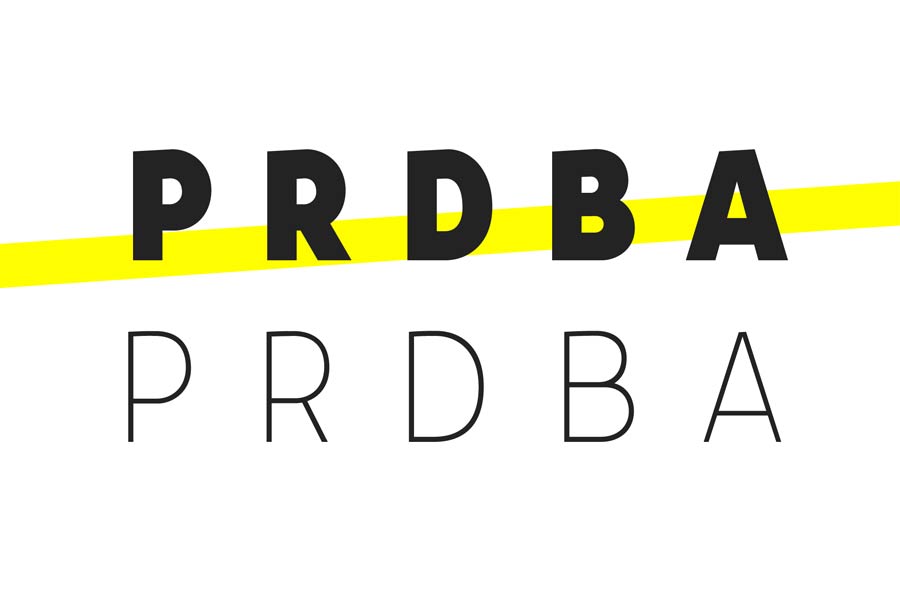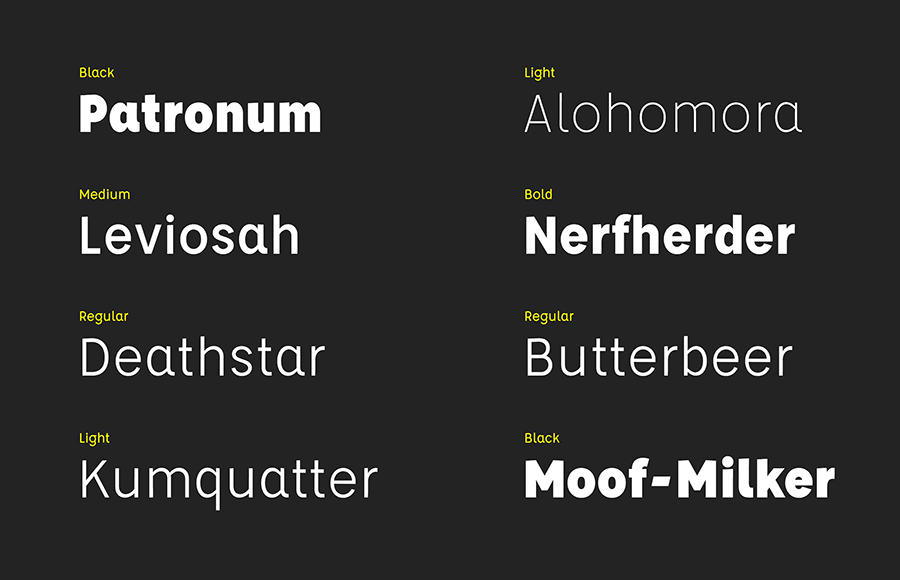
Affogato is a unique sans serif open source font which comes with 5 font weights. The unique characteristics of the designs are the font has high x-height and long descender. Some characters like P, R, B, D and A are also unique with its slanted apex. It was inspired to be a geometric humanist typeface.
- Designer: Eric Lobdell